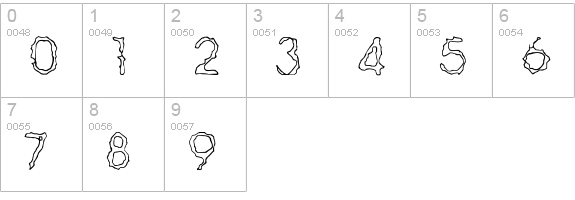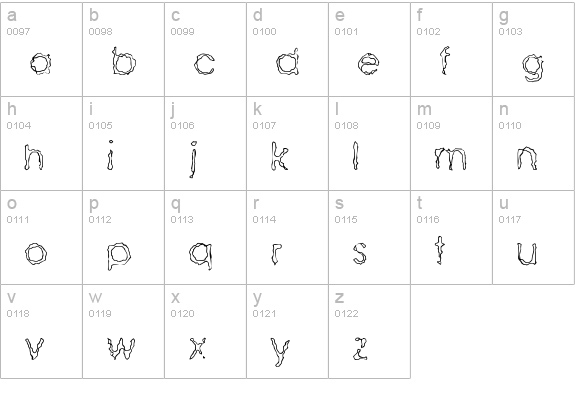
Ravaged By Years BRK Font Details
Ravaged By Years BRK font is a striking display typeface that exudes a sense of history and character. Its weathered and distressed appearance gives it a unique and rustic charm, perfect for adding a touch of vintage flair to your designs. The rough edges and worn textures of this font convey a sense of age and authenticity, making it ideal for projects that require a touch of nostalgia or a rugged aesthetic. Best of all, Ravaged By Years BRK font is available for free download at FontsMarket.com. This means you can easily add this distinctive typeface to your collection without any cost, making it a valuable resource for designers looking to elevate their work with a touch of timeless appeal. Don't miss out on the opportunity to enhance your designs with the captivating charm of Ravaged By Years BRK font - download it for free today!